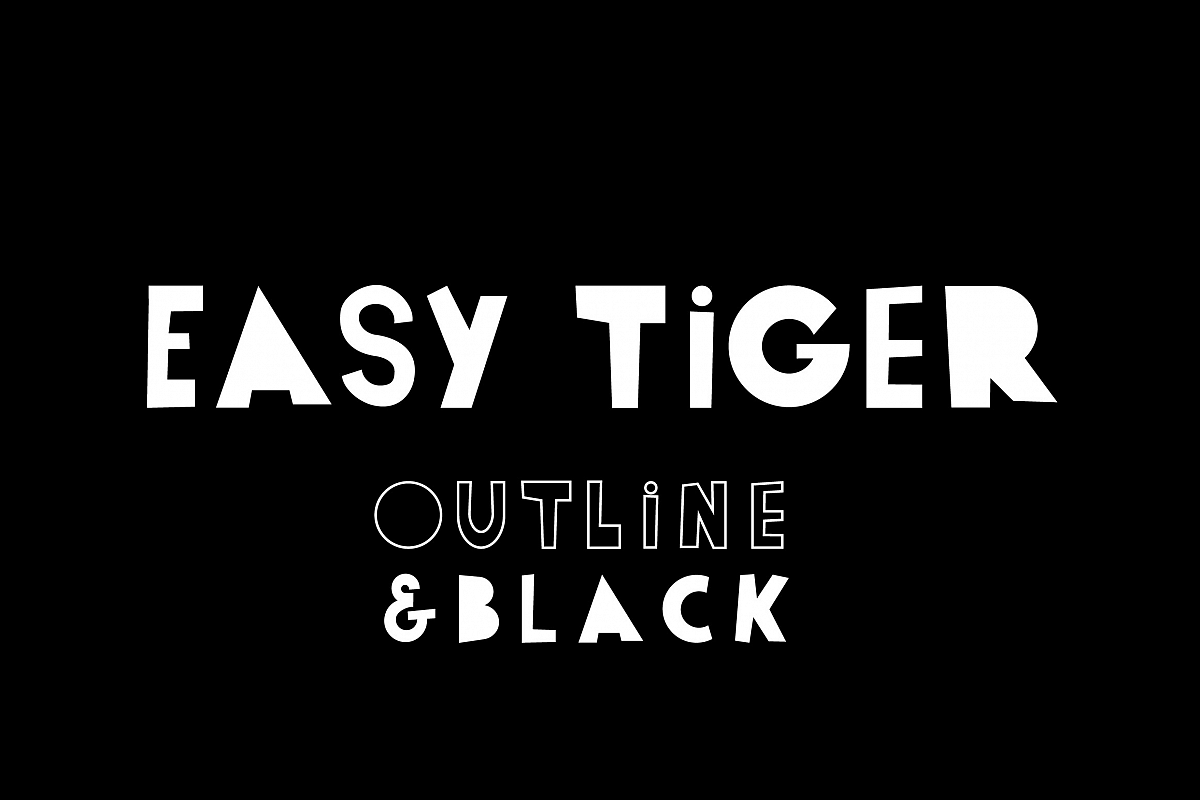
Easy Tiger | Outline and Black
Easy Tiger Outline
Easy Tiger Black
Easy Tiger is a display font duo with outlines and black characters inspired by the new album by my favorite band Portugal. The Man.
This friendly font is perfect for logos, business name display, kids apparel, poster design and much more. By changing the upper and lowercase letters as well as the outline and black, you can get amazing results whatever you use this font for.